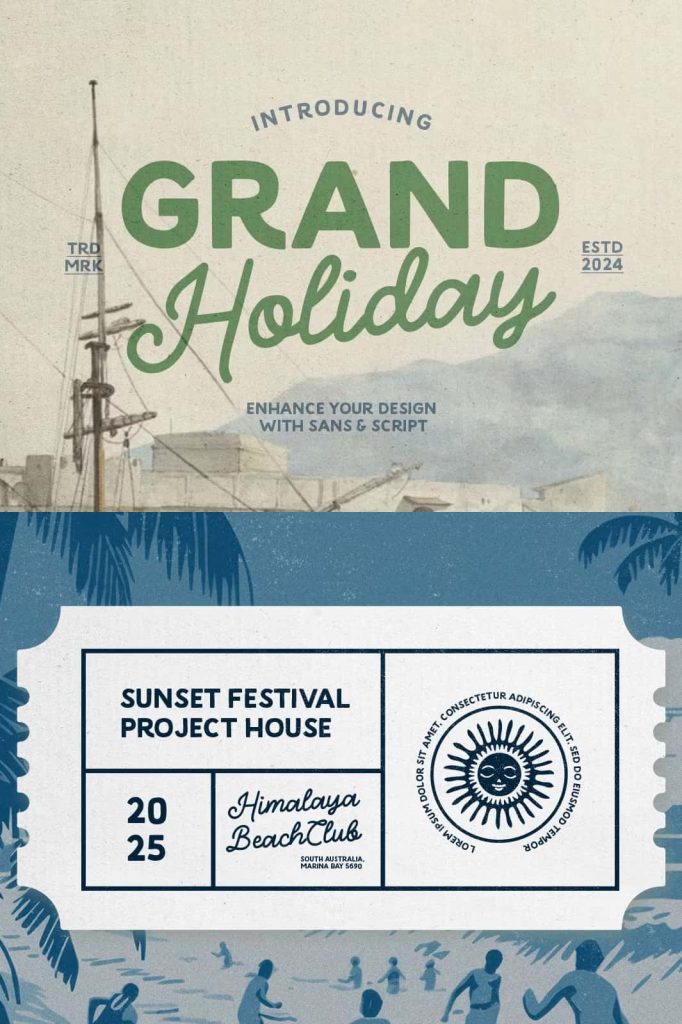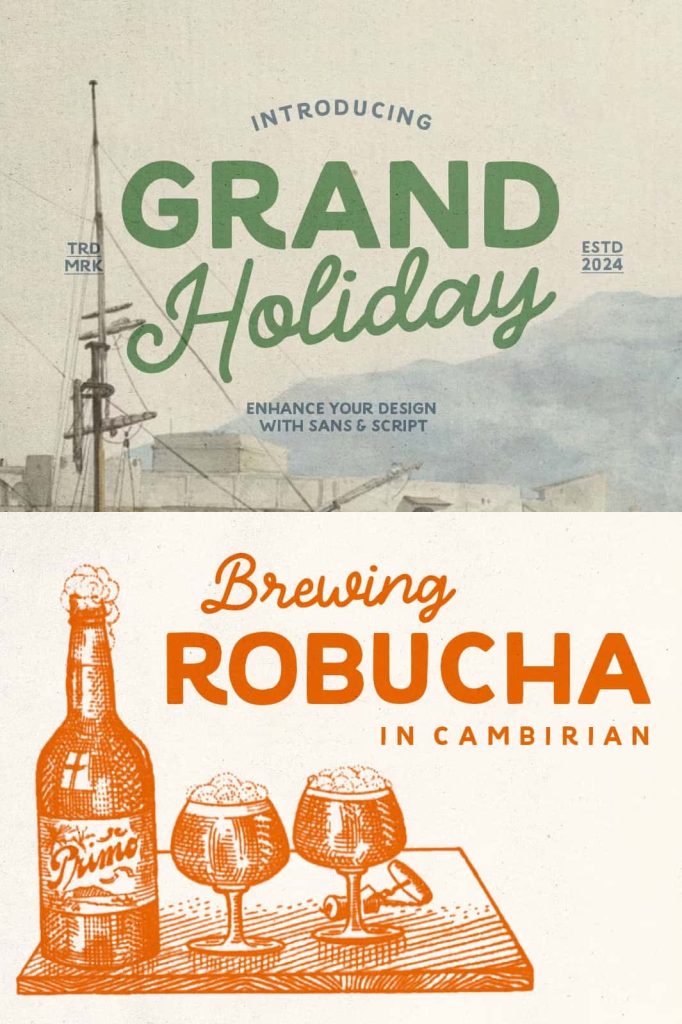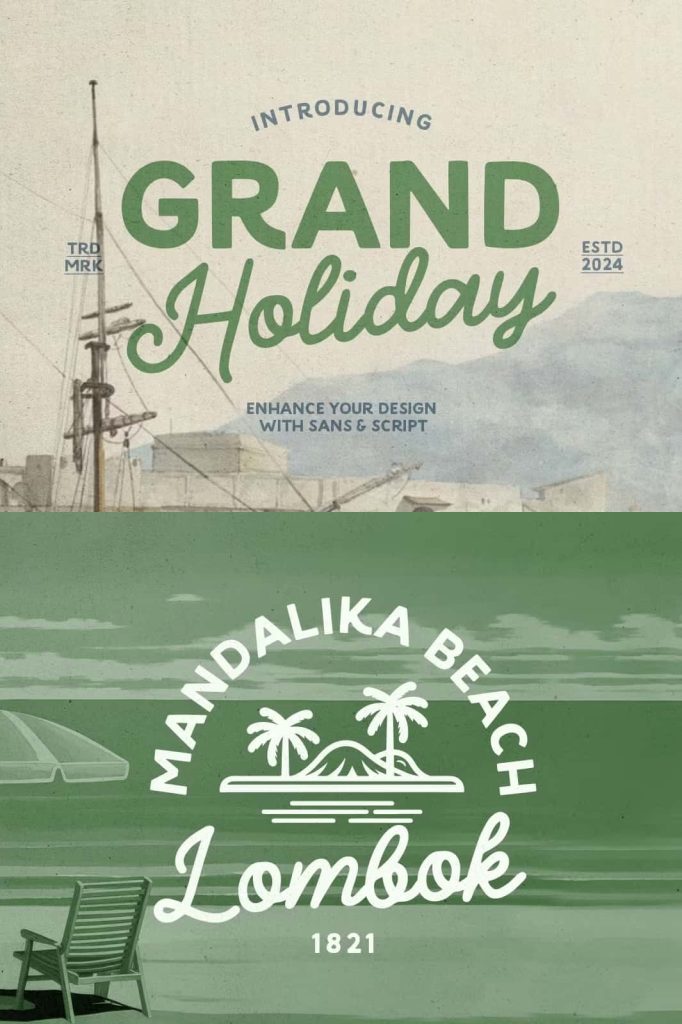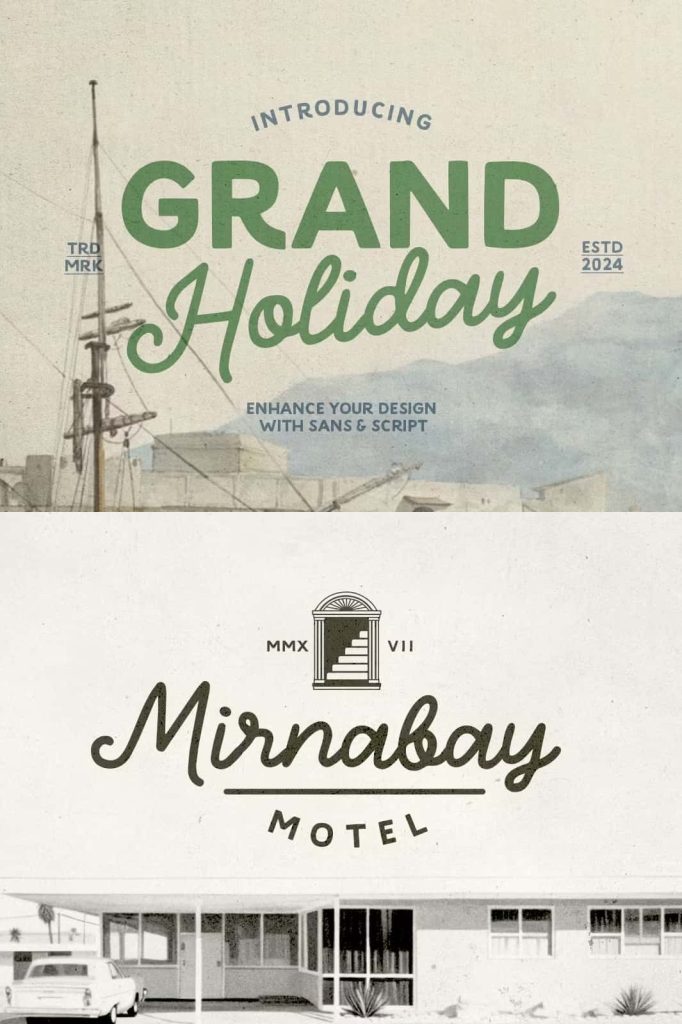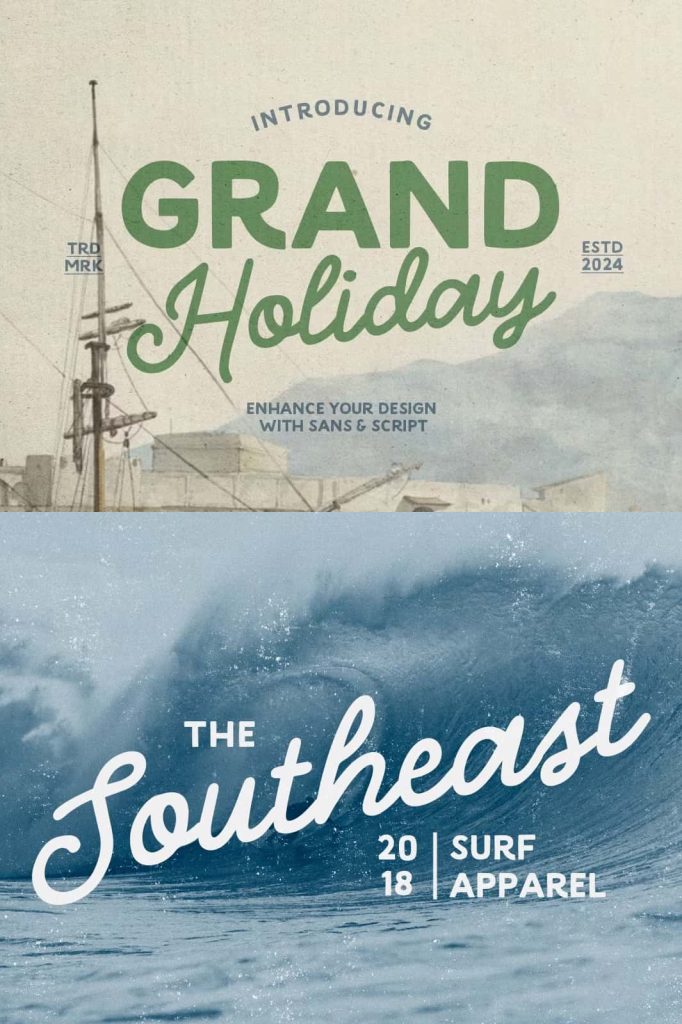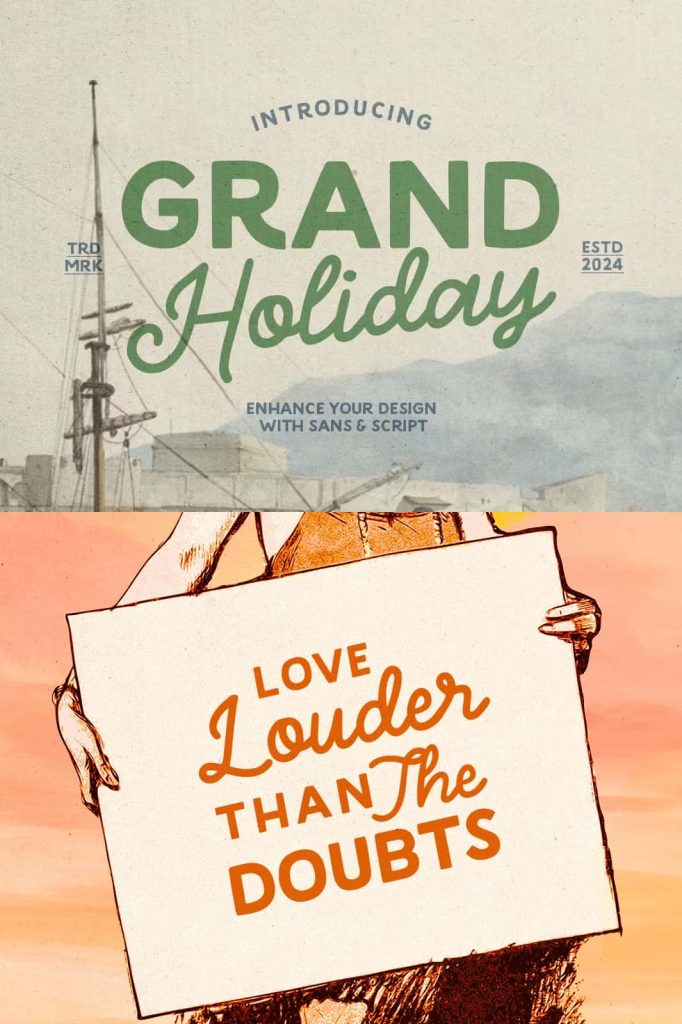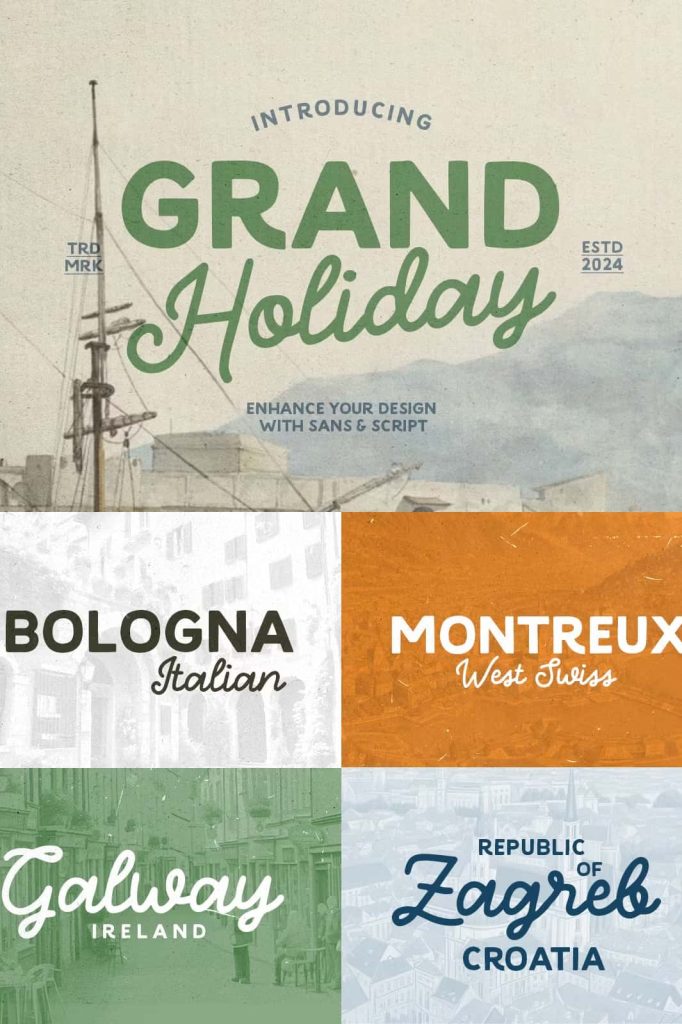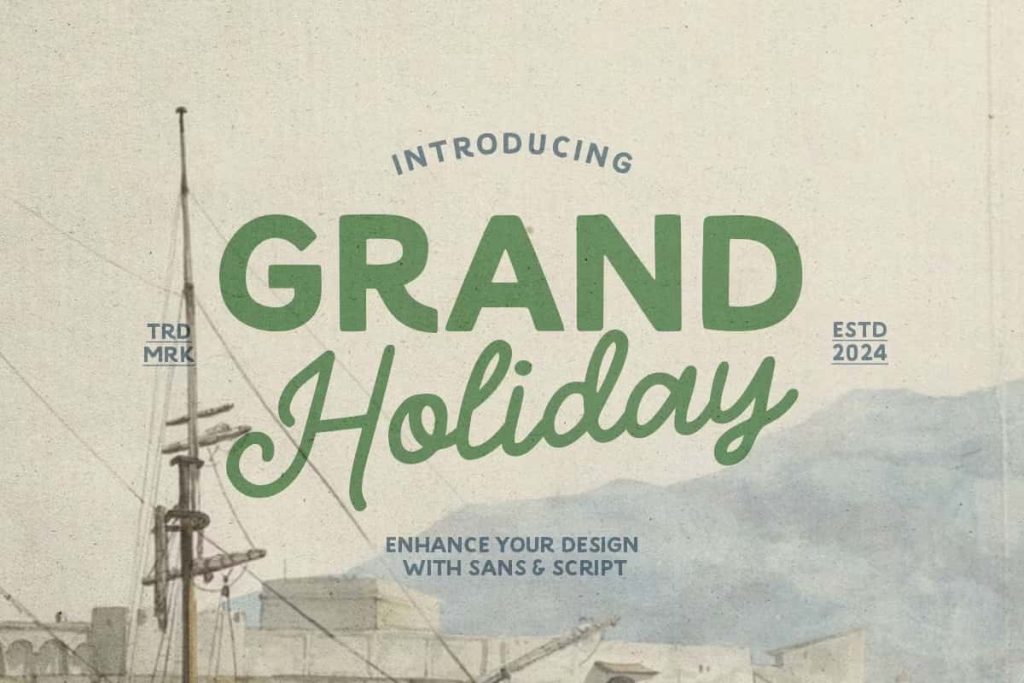
Grand Holiday Font Duo – A Handcrafted Typeface for Travel and Adventure Design
Introducing the Grand Holiday Font Duo
Grand Holiday Font Duo is a beautifully crafted typeface designed for those who love travel, exploration, and the great outdoors. This elegant pairing of a minimalist sans serif and a monoline script offers endless design possibilities, allowing you to create stunning visuals that embody freedom, discovery, and adventure. Each character is drawn with a careful hand-lettered style, giving the font a natural and organic touch that feels personal and warm.
Whether you’re working on branding, editorial layouts, or social media campaigns, Grand Holiday gives your projects a sense of sophistication and wanderlust. This font duo blends simplicity and creativity in perfect harmony, making it an excellent choice for designers who value both clarity and personality in their typography.
Two Distinct Styles for Endless Creativity
What makes Grand Holiday Font Duo truly versatile is its combination of two complementary typefaces. Each one brings a unique charm, allowing you to mix and match styles to create balanced and captivating designs.
- Grand Holiday Sans: A clean, minimalist sans serif that embodies modern simplicity and elegance. Perfect for headlines, book covers, posters, and layouts that require a professional and refined touch.
- Grand Holiday Script: A monoline handwritten script that flows smoothly with natural curves. It adds a sense of warmth, emotion, and authenticity to any design, ideal for logos, quotes, and personal branding.
When used together, the sans and script pair harmoniously — the sans providing structure and readability, while the script adds character and creativity. This balance makes the Grand Holiday Font Duo suitable for both minimalist and expressive design projects.
Perfect for Travel and Outdoor-Themed Projects
Inspired by adventure and exploration, Grand Holiday captures the spirit of the open road, distant landscapes, and unforgettable journeys. It’s ideal for designs related to travel, outdoor lifestyle, and adventure brands. Whether you’re designing a logo for a travel company, a poster for a hiking event, or a branding identity for a boutique resort, Grand Holiday brings a sense of natural elegance and movement to your work.
Ideal Use Cases:
- Travel Branding: Perfect for logos and visual identities that evoke exploration and excitement.
- Outdoor-Themed Designs: Create packaging, posters, and marketing materials with a rustic yet modern aesthetic.
- Book Covers: Design captivating covers for novels, travel journals, and memoirs.
- Social Media: Enhance travel blogs and adventure-themed content with stylish and legible typography.
- Quotes and Posters: Pair the monoline script with sans serif text to design motivational or adventure-inspired quotes.
Handcrafted Quality with Modern Versatility
Each letter in Grand Holiday Font Duo has been carefully drawn by hand, ensuring a natural and authentic appearance. The combination of clean sans serif lines and smooth monoline strokes creates a font that feels both handcrafted and modern. This attention to detail gives the typeface a unique personality, setting it apart from generic digital fonts.
The result is a pair of fonts that look effortlessly stylish in both print and digital formats. Whether used on packaging, websites, or apparel, Grand Holiday maintains its charm and readability across all mediums. It also supports multilingual characters, allowing designers around the world to use it seamlessly in diverse creative projects.
Font Features:
- Two font styles: Sans Serif and Monoline Script
- Hand-lettered and organic appearance
- Perfect balance between minimalism and creativity
- Multilingual support for global design use
- Compatible with both print and digital platforms
Elevate Your Design Projects
Grand Holiday Font Duo empowers designers to craft visuals that inspire wanderlust and emotion. The font’s versatility means it can adapt to various design contexts — from minimalist branding to expressive advertising. Its clean sans typeface ensures clarity, while the handwritten script brings warmth and human touch, creating a perfect visual balance for modern design aesthetics.
For brands and creators who want to convey authenticity, adventure, and creativity, Grand Holiday is a timeless choice. It enhances your message, amplifies visual impact, and gives your audience a sense of genuine connection.
Why Choose Grand Holiday Font Duo?
- Perfect Pairing: The sans and script complement each other beautifully for cohesive design work.
- Versatile Applications: Ideal for branding, travel projects, posters, social media, and more.
- Authentic Feel: The handcrafted details give every design a natural, personal look.
- Readable and Stylish: Clear enough for headlines, elegant enough for decorative text.
Embrace the beauty of simplicity and the thrill of exploration with Grand Holiday Font Duo — your perfect companion for design journeys that inspire and captivate.